Creativefabrica – Stunning Font Bundle
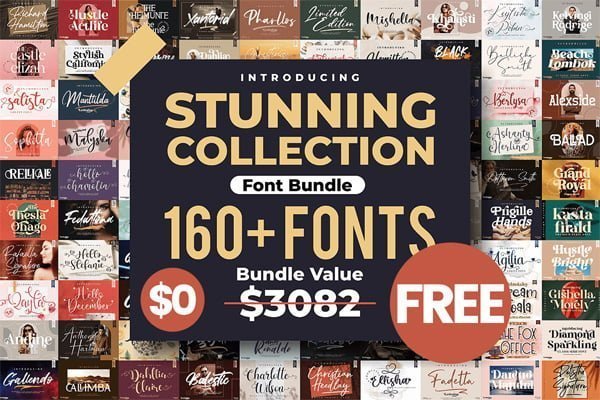
Stunning Font Bundle
These lovely fonts are perfectly suited for all types of crafting projects; card-making, scrapbooking, die-cutting, sublimation, and so much more! Most of these fonts are PUA encoded, which means you can access all of the special characters with ease. You Can Also Free Download The Magical Fonts Bundle.